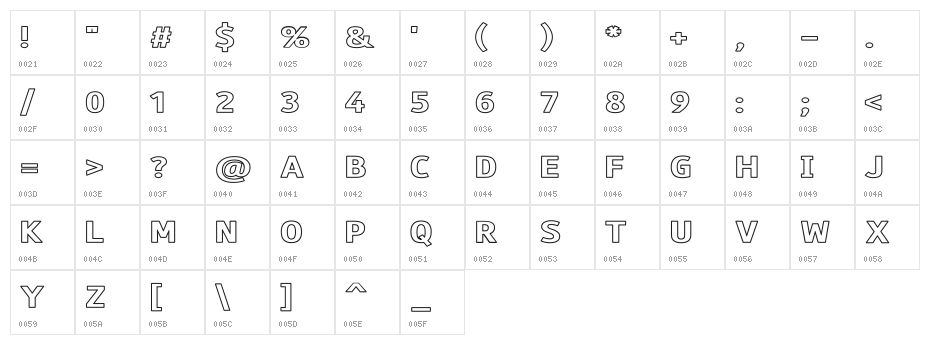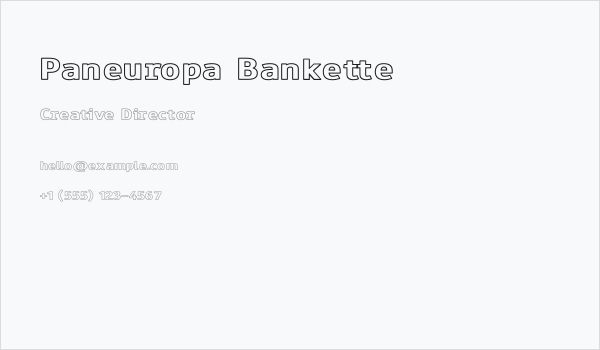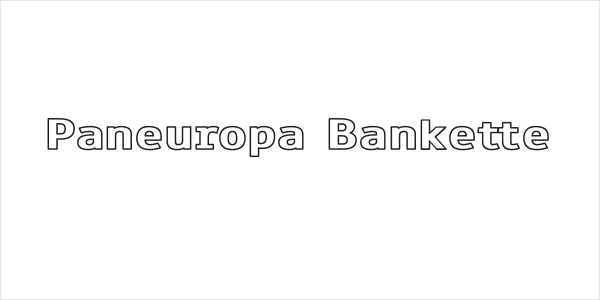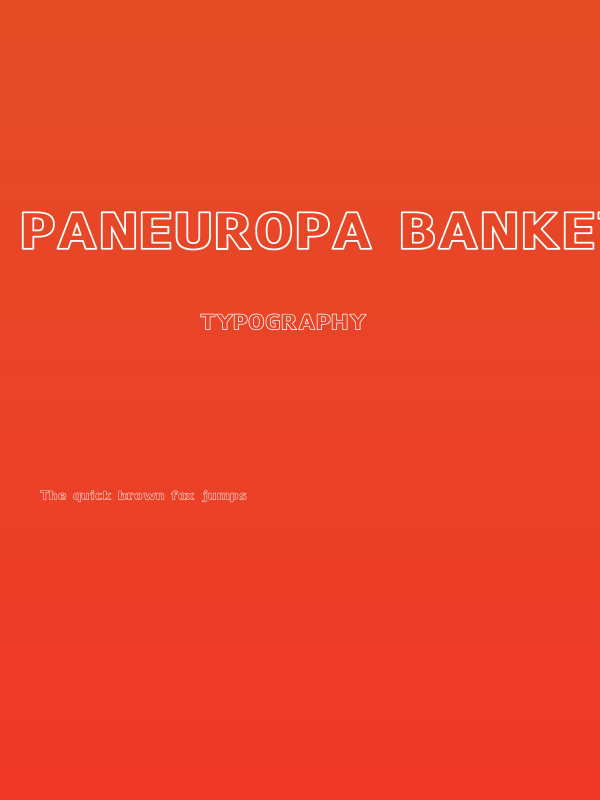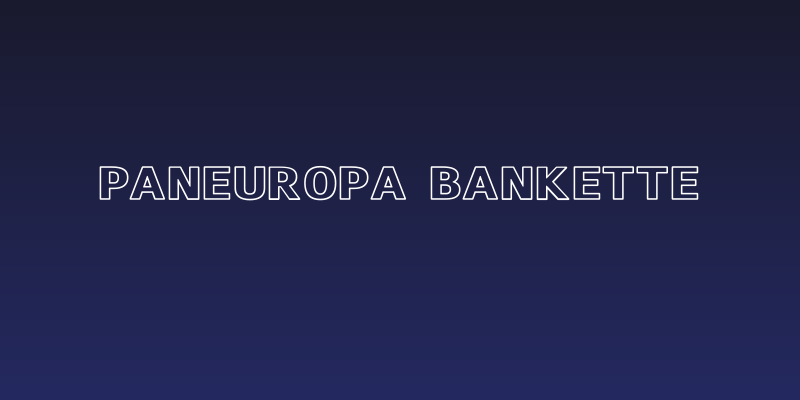
Paneuropa Bankette Font
Paneuropa Bankette Description
This font features a bold, outlined style with a modern and clean appearance. The characters are well-defined with consistent stroke widths, creating a uniform and structured look. The uppercase and lowercase letters maintain a balanced proportion, while the numerals and special characters are designed to complement the overall aesthetic. The font's outline design gives it a unique and eye-catching quality, making it suitable for various creative applications. Its geometric shapes and clear lines contribute to its contemporary feel, making it versatile for both digital and print media.
| Proposed Projects | Ideal for headlines, posters, logos, and branding materials where a striking and modern look is desired. |